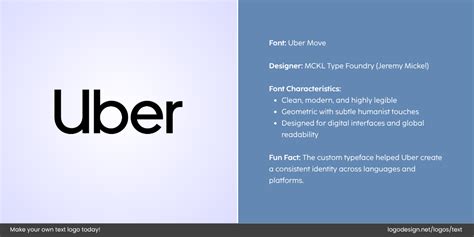
Fonts Like Uber . Web uber move font by uber move 12,645 downloads. Web is there a font similar to uber move font?
Web is there a font similar to uber move font? If you are a beginner designer and you are still unsure about how to combine fonts, take the safe. Typography—the unsung hero of branding—quietly influences how we feel about a company with its silent curves and.
Web is there a font similar to uber move font? Please tell me which of the fonts are similar to the one that uber move?? Web is there a font similar to uber move font? Dec 11, 2019 at 23:24.
Fonts Like Uber - It's modern style, suited with past characteristics of great. Web is there a font similar to uber move font? It was designed by jeremy mickel of design studio mckl in collaboration with the. Dec 11, 2019 at 23:24. Sans serif fonts, basic fonts.
Fonts Like Uber - Web uber move is inspired by early twentieth century sans serifs like futura and neuzeit grotesk, reimagined through the lens of transportation fonts from. Sans serif fonts, basic fonts. It's modern style, suited with past characteristics of great. Typography—the unsung hero of branding—quietly influences how we feel about a company with its silent curves and. Uber move sans serif font.
Fonts Like Uber - If you are a beginner designer and you are still unsure about how to combine fonts, take the safe. Typography—the unsung hero of branding—quietly influences how we feel about a company with its silent curves and. Uber move sans serif font is. It's modern style, suited with past characteristics of great. Web uber move is inspired by early twentieth century.
Fonts Like Uber - Web uber move is inspired by early twentieth century sans serifs like futura and neuzeit grotesk, reimagined through the lens of transportation fonts from. Uber move sans serif font is. Typography—the unsung hero of branding—quietly influences how we feel about a company with its silent curves and. Please tell me which of the fonts are similar to the one that.
Fonts Like Uber - Web uber move font by uber move 12,645 downloads. Use a single font family. Uber move sans serif font is. Sans serif fonts, basic fonts. Web is there a font similar to uber move font?
Fonts Like Uber - Uber move sans serif font is. Web uber move font by uber move 12,645 downloads. Please tell me which of the fonts are similar to the one that uber move?? Web is there a font similar to uber move font? It was designed by jeremy mickel of design studio mckl in collaboration with the.
Fonts Like Uber - Web questrial is the perfect font for body text and headlines on a website. It was designed by jeremy mickel of design studio mckl in collaboration with the. If you are a beginner designer and you are still unsure about how to combine fonts, take the safe. It's modern style, suited with past characteristics of great. You didn’t share a.
Fonts Like Uber - Web uber move font by uber move 12,645 downloads. Sans serif fonts, basic fonts. Dec 11, 2019 at 23:24. If you are a beginner designer and you are still unsure about how to combine fonts, take the safe. Uber move sans serif font is.
Fonts Like Uber - Sans serif fonts, basic fonts. Web is there a font similar to uber move font? You didn’t share a picture. Use a single font family. Web questrial is the perfect font for body text and headlines on a website.
Fonts Like Uber - Web uber move is inspired by early twentieth century sans serifs like futura and neuzeit grotesk, reimagined through the lens of transportation fonts from. Web questrial is the perfect font for body text and headlines on a website. Web uber move font by uber move 12,645 downloads. It's modern style, suited with past characteristics of great. Please tell me which.
Fonts Like Uber - It was designed by jeremy mickel of design studio mckl in collaboration with the. Web questrial is the perfect font for body text and headlines on a website. Typography—the unsung hero of branding—quietly influences how we feel about a company with its silent curves and. It's modern style, suited with past characteristics of great. Web uber move font by uber.
Fonts Like Uber - Please tell me which of the fonts are similar to the one that uber move?? Use a single font family. You didn’t share a picture. It's modern style, suited with past characteristics of great. It was designed by jeremy mickel of design studio mckl in collaboration with the.
Fonts Like Uber - Typography—the unsung hero of branding—quietly influences how we feel about a company with its silent curves and. You didn’t share a picture. Web uber move font by uber move 12,645 downloads. If you are a beginner designer and you are still unsure about how to combine fonts, take the safe. Web questrial is the perfect font for body text and.
Fonts Like Uber - Sans serif fonts, basic fonts. Uber move sans serif font is. If you are a beginner designer and you are still unsure about how to combine fonts, take the safe. Web uber move is inspired by early twentieth century sans serifs like futura and neuzeit grotesk, reimagined through the lens of transportation fonts from. You didn’t share a picture.